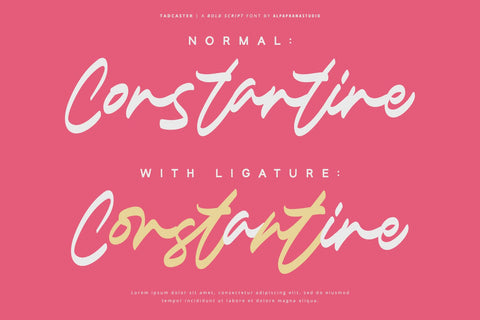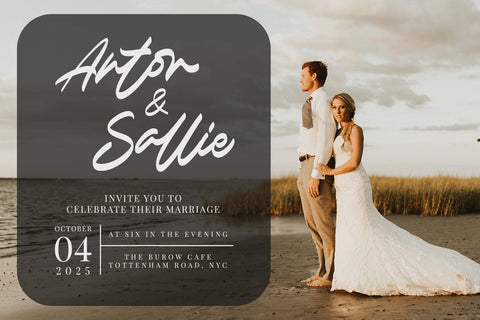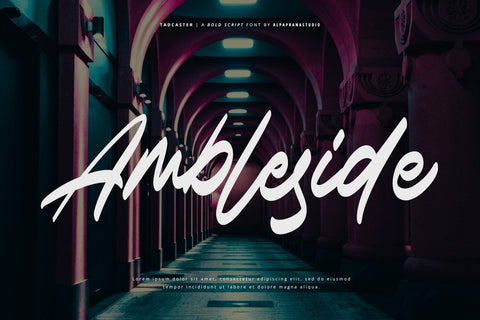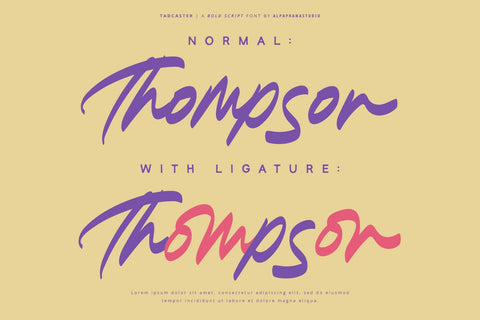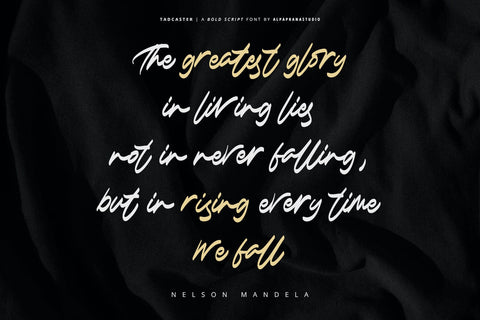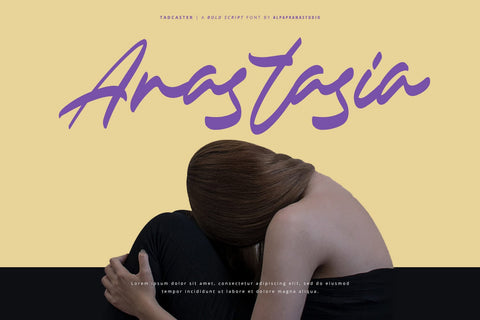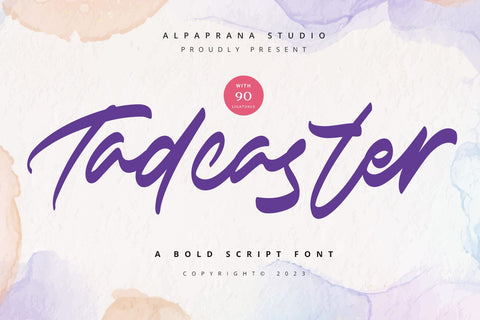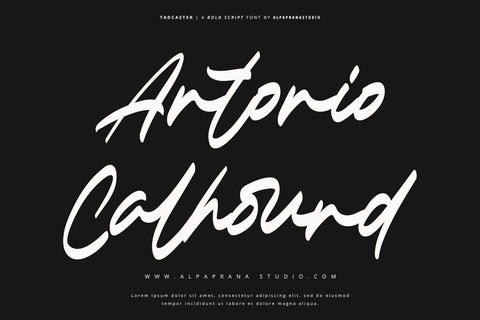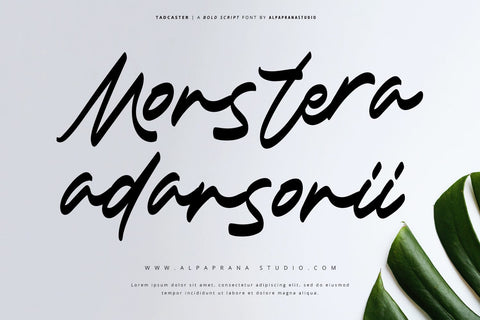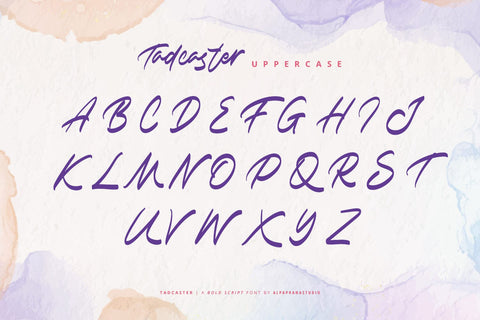
Tadcaster - Bold Script Font
Tadcaster is a bold script font with natural and modern feels. It will be perfectly used for Branding, Logo Design, Lettering, Logotype, Clothing, Poster, magazine, packaging, posters, shopping bags, t-shirts, book covers, photography, special events and other design project.